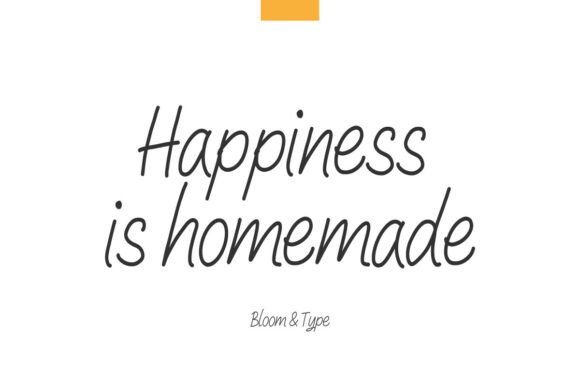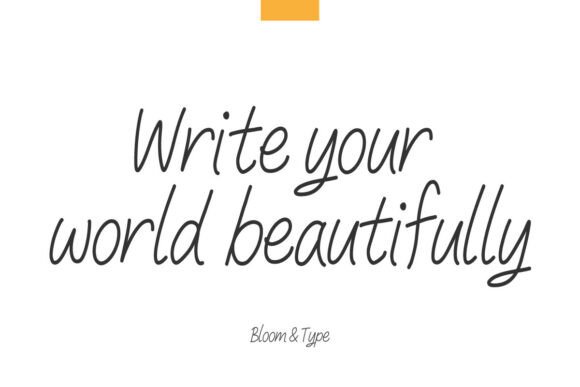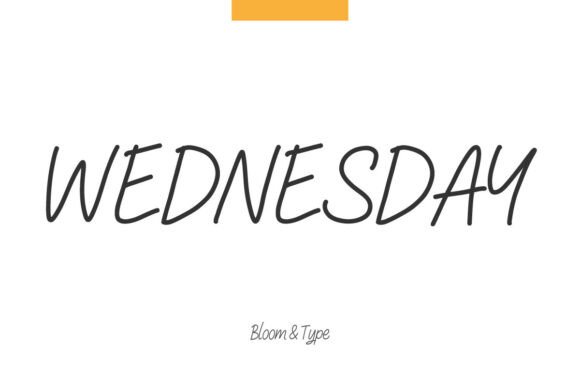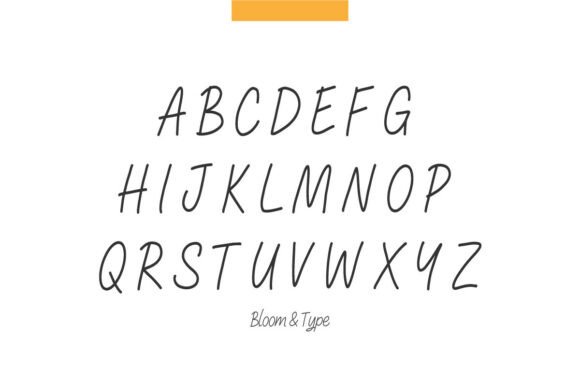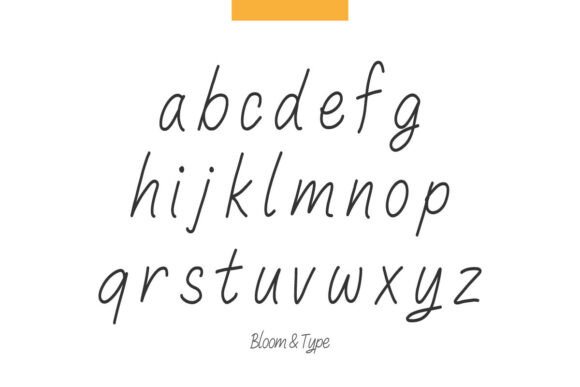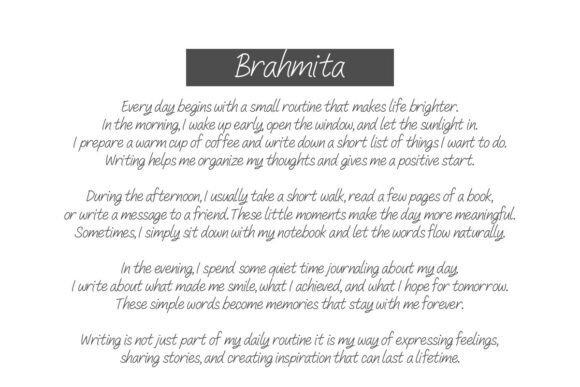
Introduction to Brahmita Font
Brahmita is a graceful handwritten font designed to bring a sense of warmth, elegance, and natural flow into your creative projects.
Its characters feature smooth curves, clean strokes, and a casual handwriting style, making it perfect for both modern and timeless designs This font captures the beauty of everyday writing, giving your work a personal and authentic touch.
Key Features of Brahmita Font
Why Choose Brahmita Font?
Brahmita Font offers exceptional quality and versatility, making it a valuable addition to your design toolkit. Whether you’re creating for personal projects or commercial use, Brahmita Font delivers professional results.